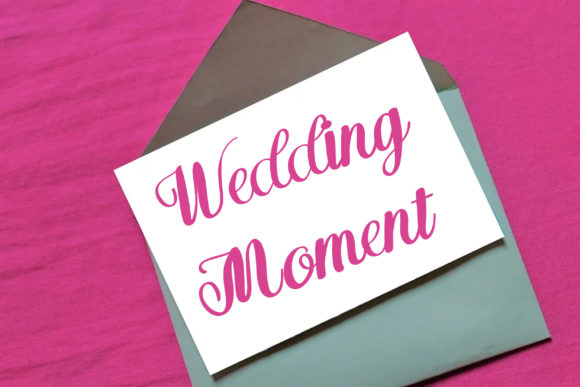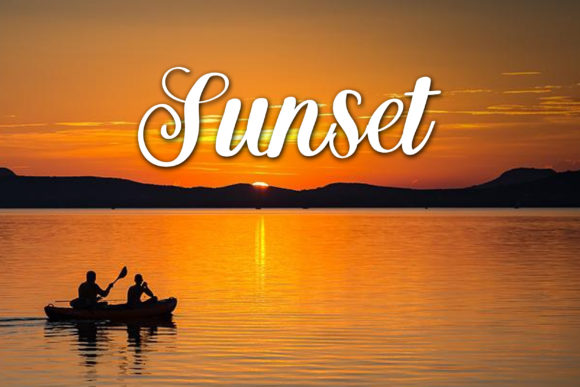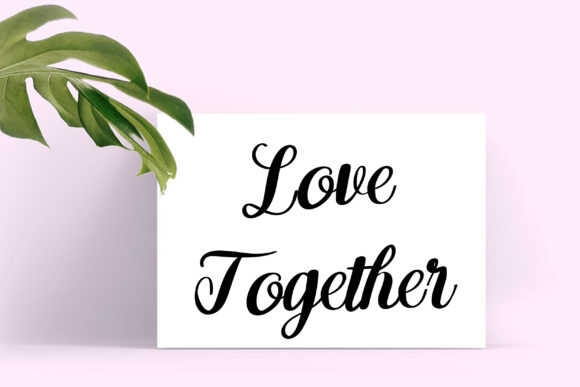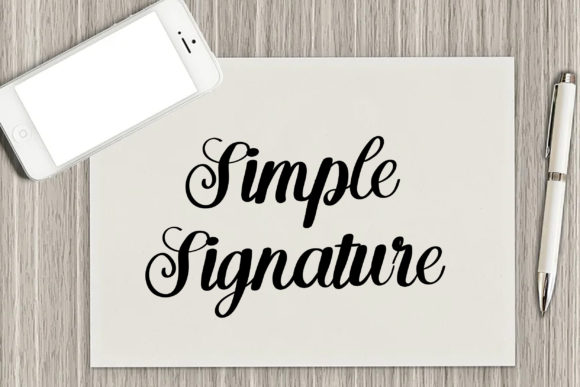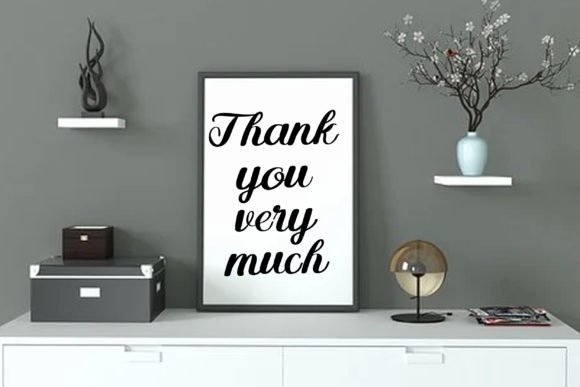
Introduction to Hello Sherly Font
Have you ever stared at a blank page, waiting for inspiration to strike? That’s exactly what happened to me when I was working on a creative project and needed the perfect font to bring it to life. I was searching for a font that would add a touch of elegance and sophistication, and that’s when I stumbled upon the Hello Sherly Font. This beautiful font has been a game-changer for designers like me, and I’m excited to share its awesomeness with you.
The Hello Sherly Font is a high-quality design resource that’s perfect for a wide range of creative projects, from YouTube banners to wedding invitations. Its unique and beautiful style makes it stand out from the crowd, and its transparent background option makes it easy to customize and use. And the best part? It’s available for free download, making it an accessible and valuable resource for designers of all levels.
Key Features of Hello Sherly Font
- High-quality design: The Hello Sherly Font is a premium font designed for creative projects, offering a unique and elegant look.
- Transparent background: This font features a transparent background, making it ideal for use on images with complex backgrounds.
- High-resolution design: The font is designed at 300 DPI, making it perfect for use in high-resolution designs, such as print materials and digital graphics.
- Unique characteristics: The Hello Sherly Font features a unique blend of modern and vintage elements, making it an excellent choice for designers looking to add a touch of elegance to their creative projects.
- Perfect for design resources: The font is an excellent addition to any designer’s collection, providing a high-quality design resource for a wide range of creative projects.
Honest Review: Hello Sherly Font
I recently had the chance to work with the Hello Sherly Font on a creative project, and I must say it was a great experience. This font is perfect for designers who want a high-quality, free download that can elevate their designs.
- High-quality design: The Hello Sherly Font is incredibly detailed and looks great at any size.
- Transparent background: This feature allows for seamless integration into any design, making it perfect for logos, graphics, and more.
- Limited font styles: While the Hello Sherly Font is beautiful, it’s limited to a single style, which may not be ideal for designers who need a variety of options.
- Not suitable for body text: Due to its elegant and decorative nature, the Hello Sherly Font may not be the best choice for body text, where readability is key.
Overall, I’m impressed with the Hello Sherly Font. While it may have some limitations, its high quality and free download make it a valuable design resource. I would definitely recommend it for creative projects that require a beautiful, decorative font.
Hello Sherly Font
Tips for Getting the Most Out of Hello Sherly Font
For the best results, use the Hello Sherly Font in conjunction with a transparent background. This will allow the font to stand out and make your design look more professional. You can also experiment with different font sizes and styles to add visual interest to your design.
The Hello Sherly Font is suitable for a variety of use cases, including social media graphics, presentations, and documents. It’s also a great choice for designers who need a high-quality, free font for their creative projects.